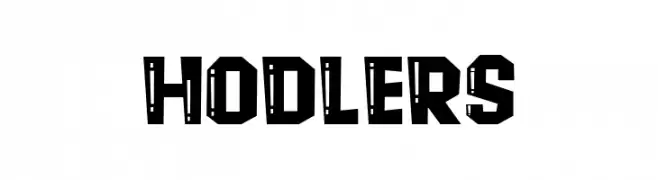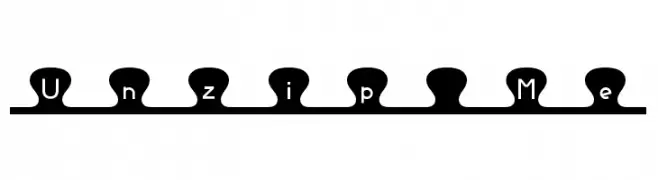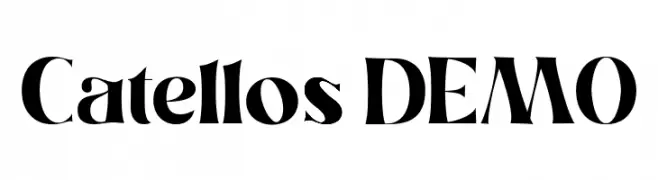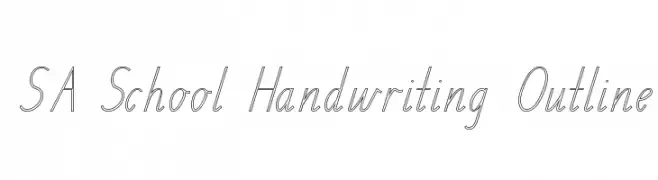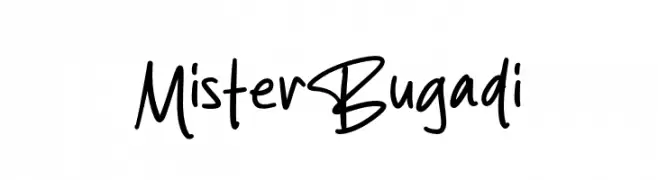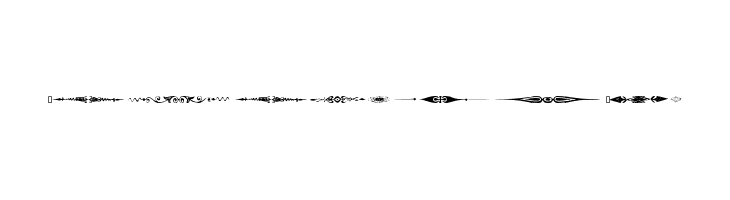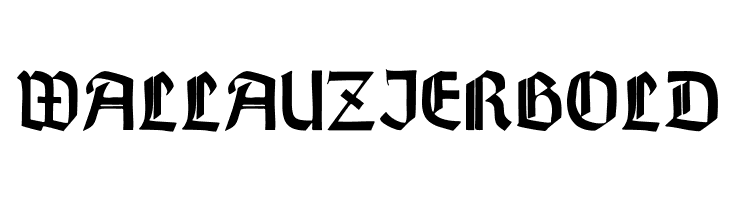
A whimsical, hand-drawn font with a scarecrow theme, featuring straw-like elements.
A bold, stencil-like font with sharp, angular edges and an industrial feel.
A playful, zipper-inspired decorative font with rounded, bulbous shapes.
An ornate, medieval-inspired font with decorative flourishes.
A bold, high-contrast serif font with dramatic strokes and elegant serifs.
A clean, outlined handwriting-style font with a casual slant.
A decorative font with intricate patterns and bold, artistic letterforms.
A dynamic, handwritten font with elongated, expressive strokes.
A casual, handwritten font with fluid and playful strokes.